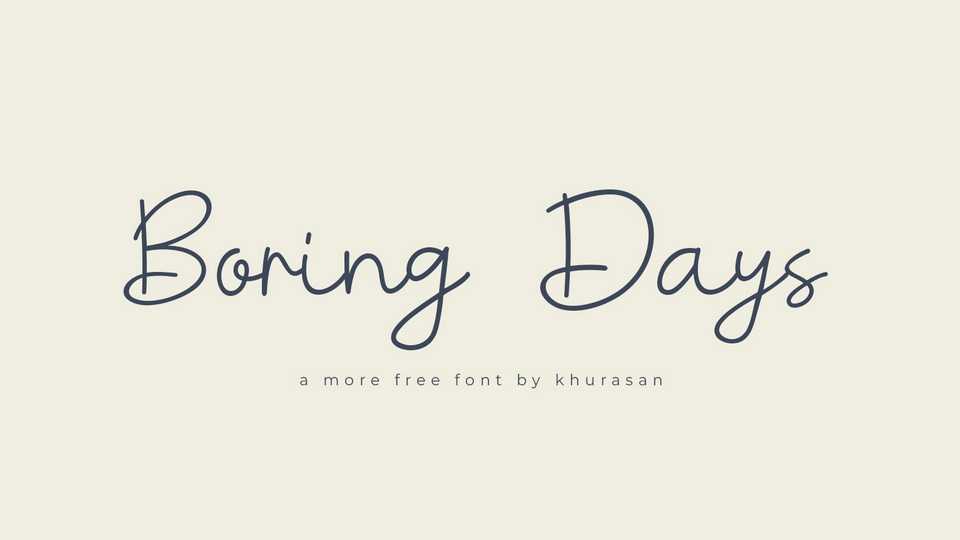
Download Boring Days font, a smooth, natural handwritten typeface with a simple and clean look. Whether you need it for notes, quotes, personal branding, social media, Boring Days font is the perfect choice for a truly authentic look.